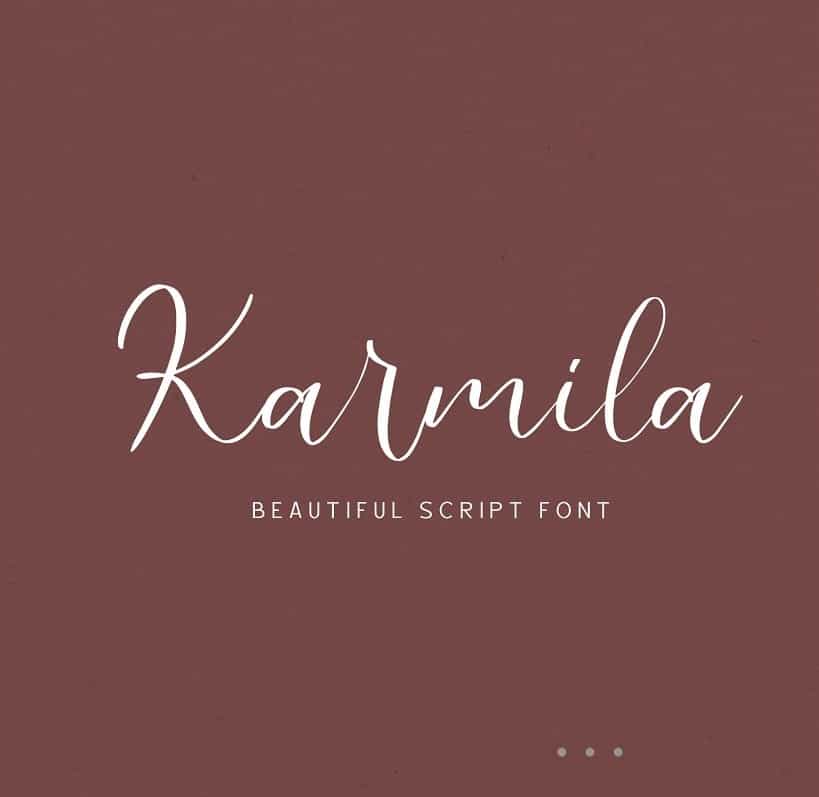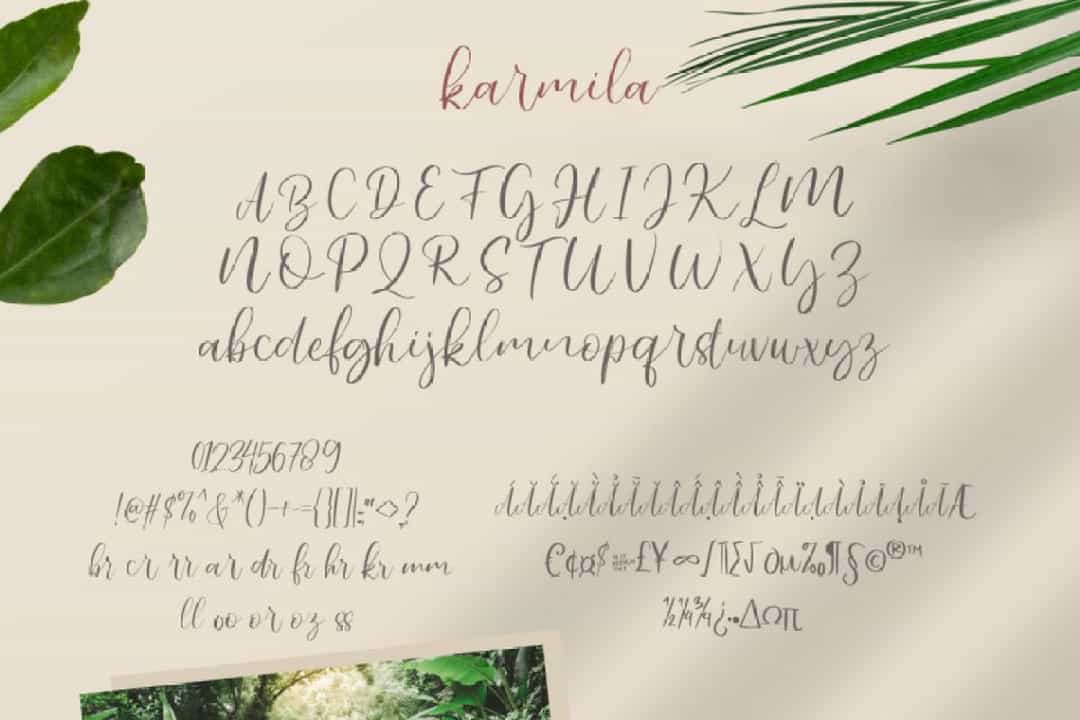
Discover Karmila Handwritten Script Font, part of the Calligraphy Handwritten Script collection—a versatile and unique font perfect for adding a personal touch to your projects. Download it for free and enjoy crafting designs with style, from invitations to social media posts. This font is available exclusively for personal use, giving you the freedom to create without limits. Unlock your creativity with Karmila Handwritten Script Font today!
Karmila can be mentioned to be a beautiful handwritten font script. You will fall in love with its natural feel and you can use it to create beautiful wedding invitations, beautiful stationery arts, attractive social media posts, and beautiful greeting cards.